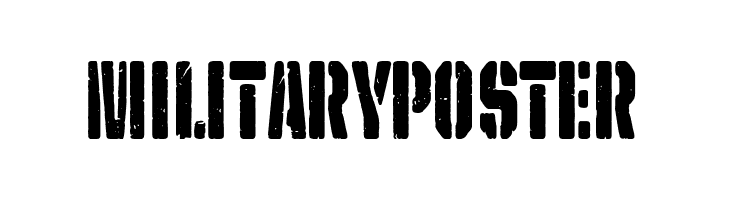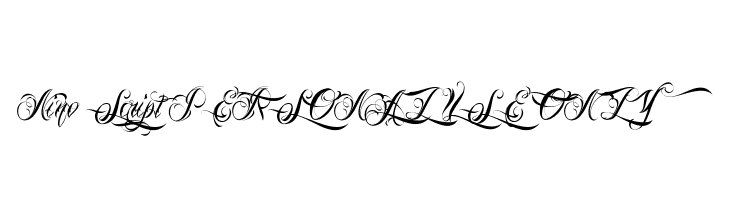
A bold, distressed stencil font with a vintage military aesthetic.
Not a valid font for text representation.
A bold, playful font with irregular, cartoonish letterforms.
A bold, hand-drawn font with a playful and informal style.
A modern monospaced font with semi-bold weight and italic style, ideal for coding.
A playful, handwritten font with a whimsical and casual style.
A bold, outlined, italic font with a modern, geometric style.
A clean, modern sans-serif font with an extra light weight and minimalist design.
A flowing, cursive font with a handwritten, elegant style.
An artistic and decorative script font with intricate, overlapping letterforms.